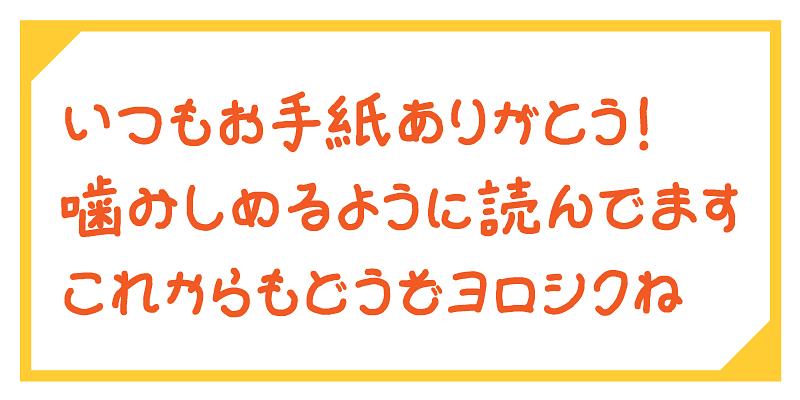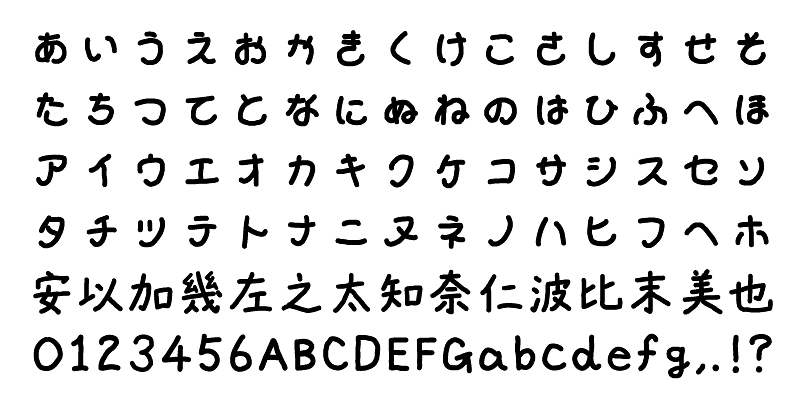
The “takumi yutori font” has kana characters with wide counter spaces. This gives a touch of looseness and relaxation, making the typeface free from pressure. The rounded shape of the kana characters gives a kind of agile cuteness and innocence. This typeface is perfect for printed material for young children, informal letters to friends, and invitation to local events. The typeface family has two variations: “Normal” with larger kana glyphs, and “Mini” with smaller kana glyphs.
Fonts with names ending with “P” have proportional widths for alphanumeric, hiragana, katakana and some symbol characters. Fonts with names that do not end with “P” have fixed widths for these characters.
“takumi” has been introducing and selling his original fonts through his blog page: “takumi’s paradise”. Any font can give expression to not only each character in a message but also to the message as a whole, and font selection is an essential tool for a user to faithfully convey messages to the reader. It’s takumi’s desire that users enjoy communication through his typefaces.